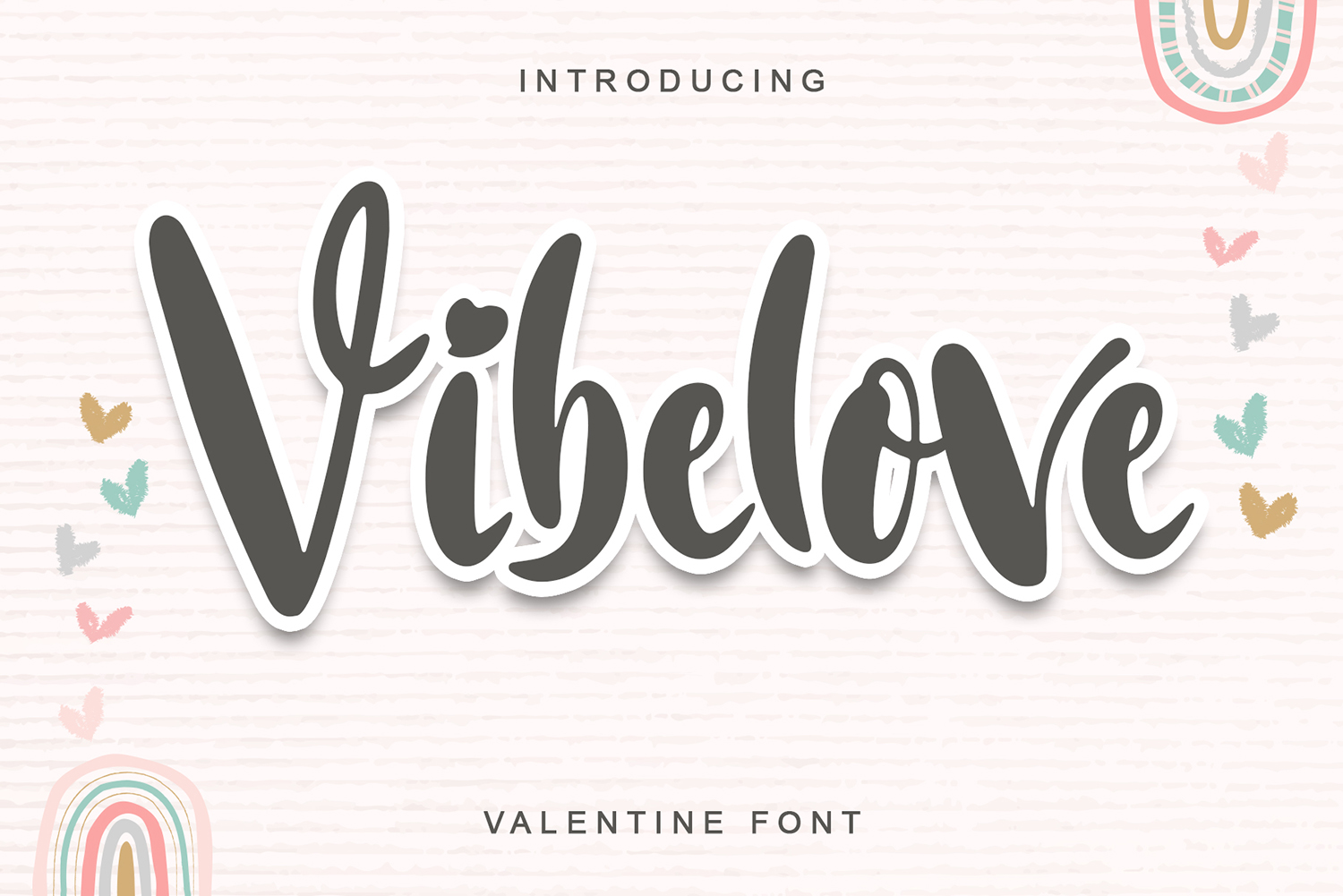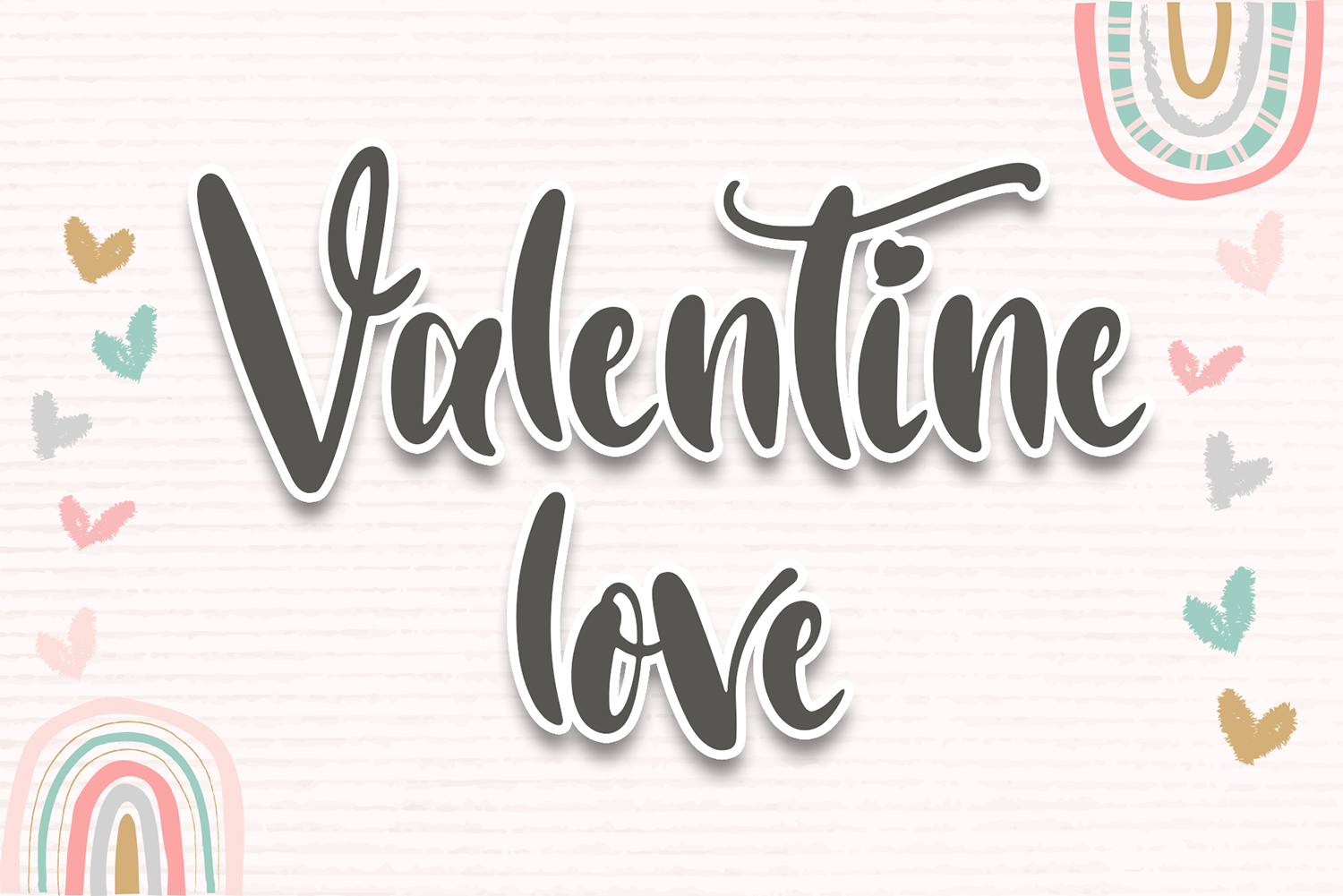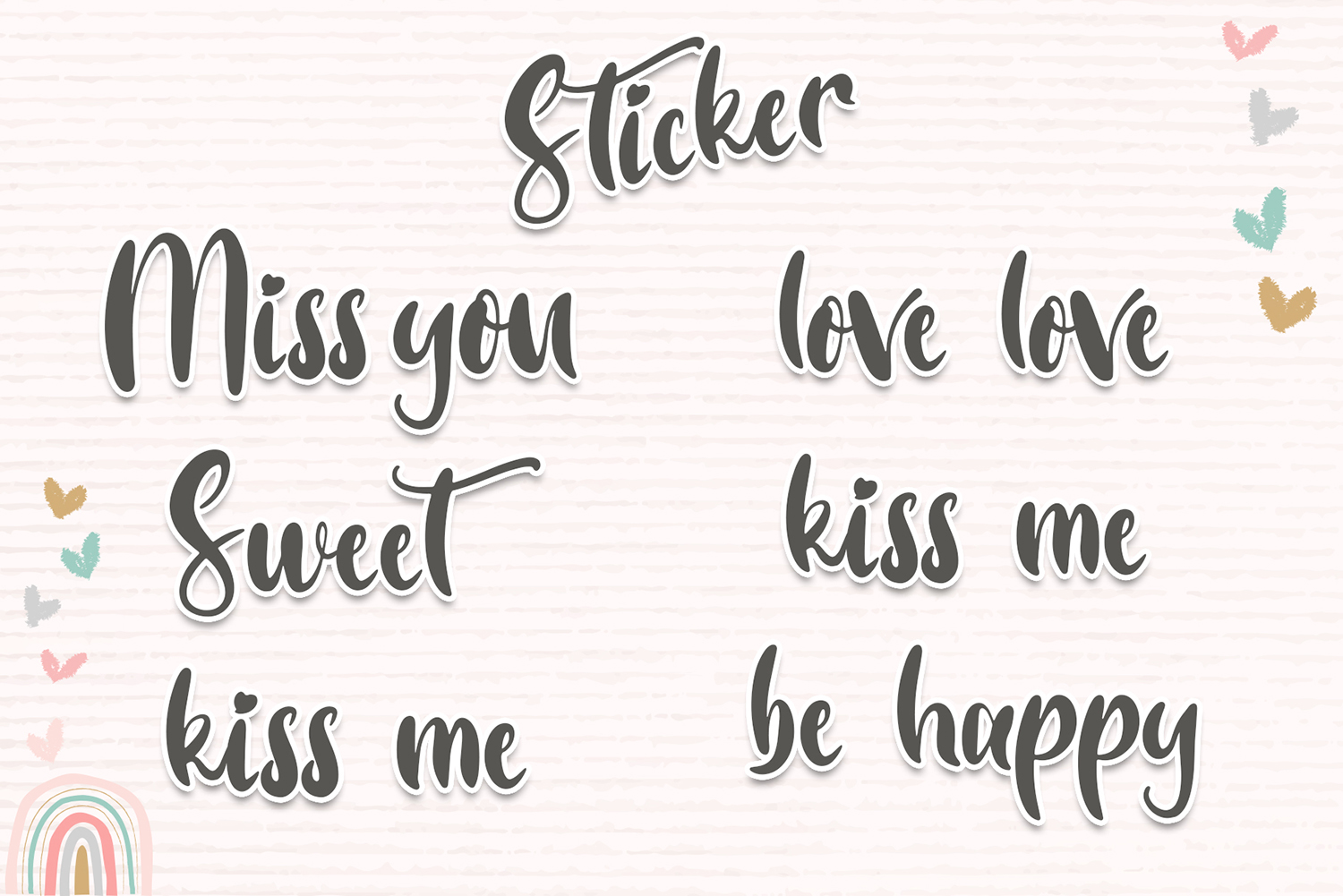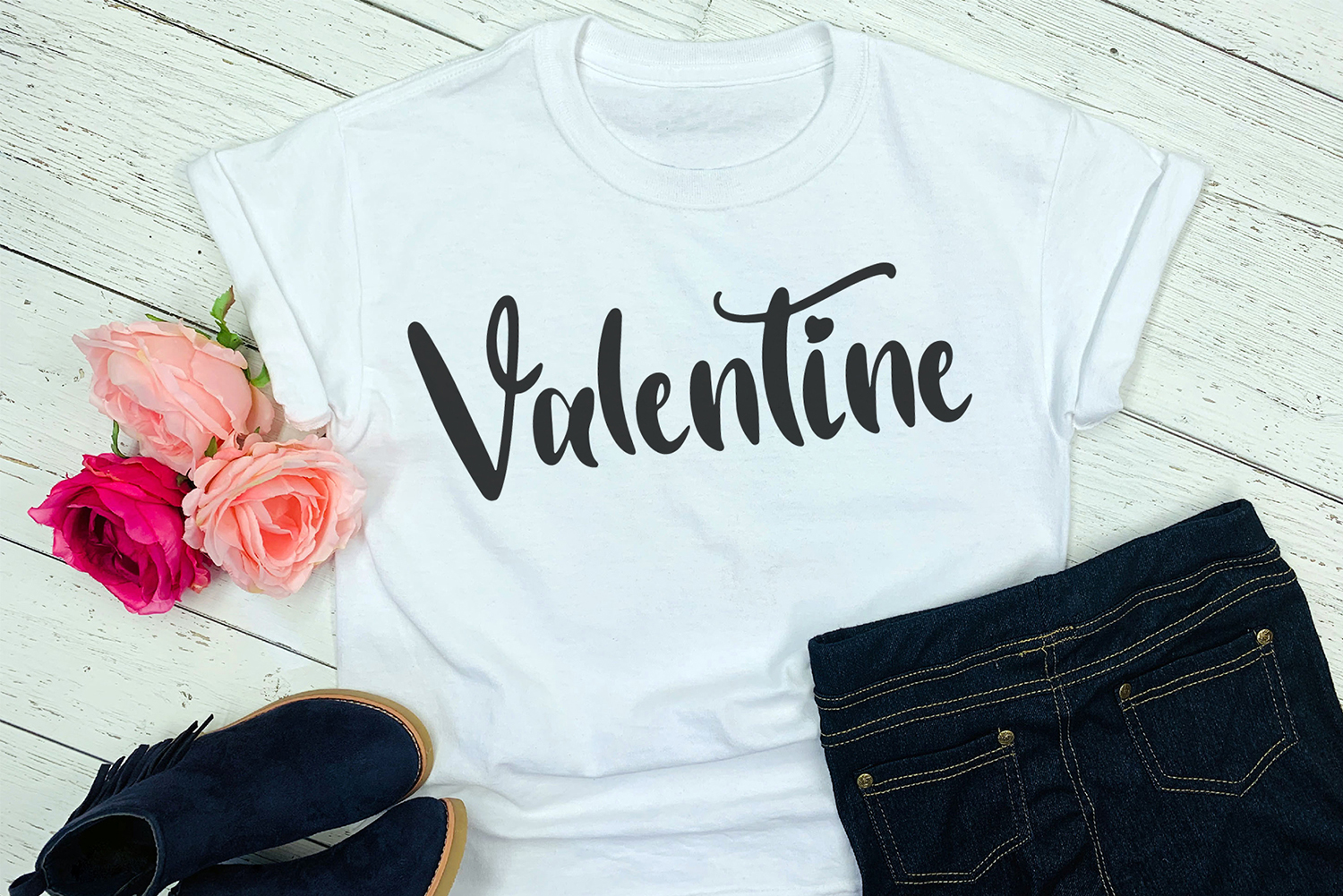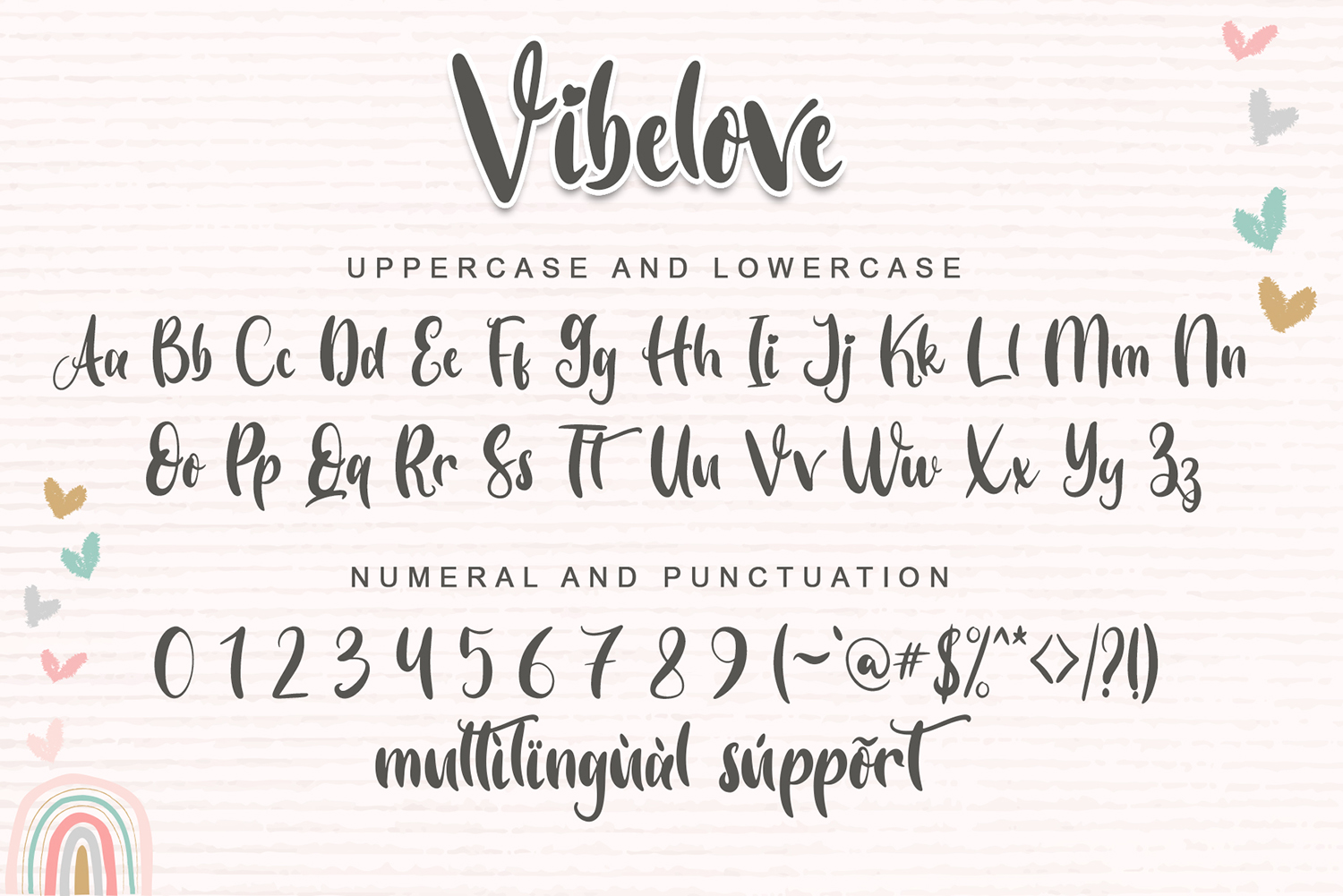
Vibelove Free Font
Embrace Vibelove Free Font, a delightful script font tailor-made for all your Valentine’s Day designs. Infuse it with certainty into your creative endeavors, and watch as they capture the hearts and attention of all. This free typeface was designed by a talented Alif Ryan Zulfikar. If you like it don’t forget to check out the full version.